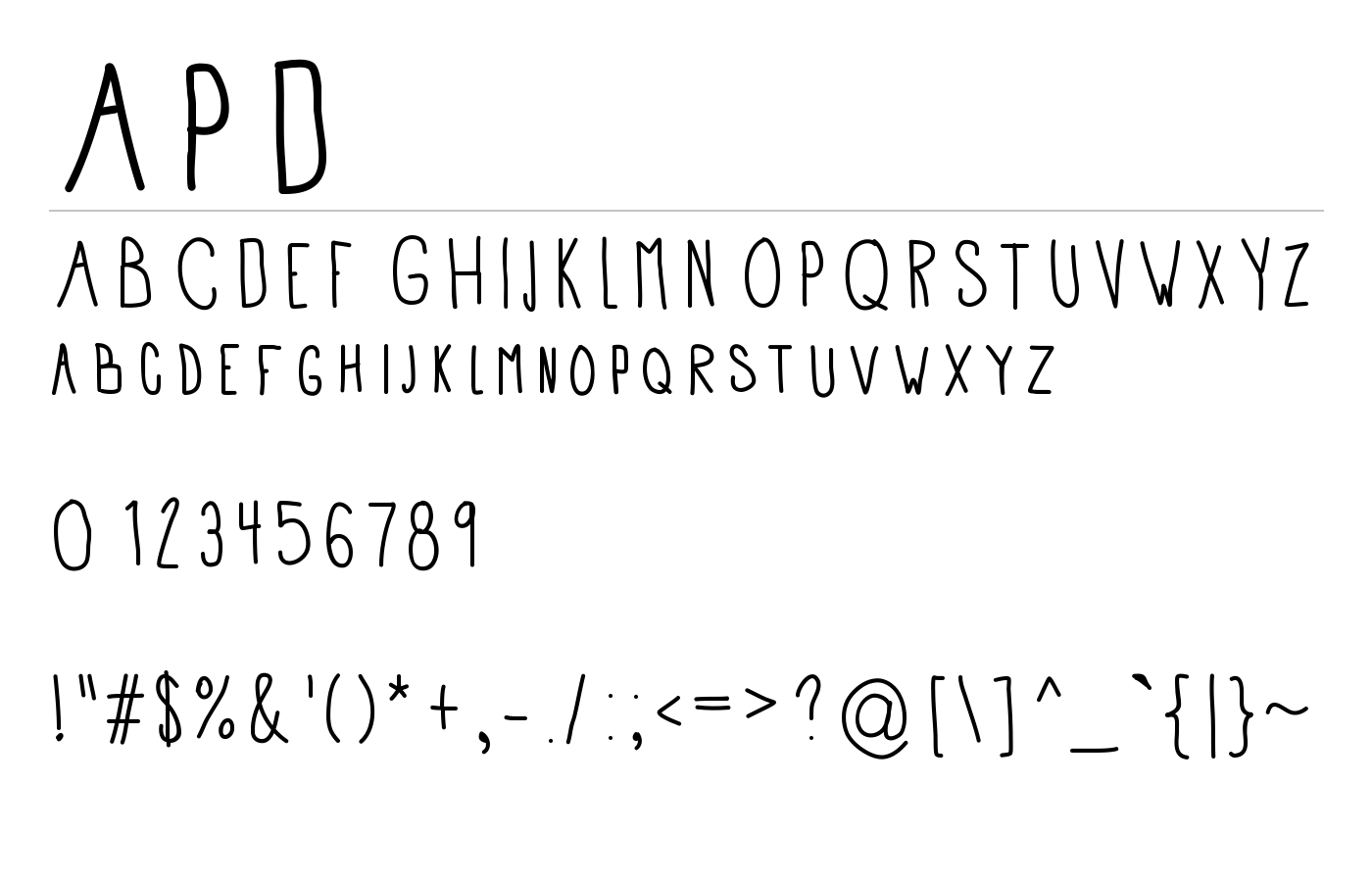
APD Font is a playful and casual handwritten sans serif typeface featuring tall, narrow letterforms with a consistent, light weight and low contrast. Its quirky, slightly uneven strokes give it a friendly and approachable personality, making it ideal for creative projects, informal branding, and whimsical designs. This font works best in headlines, invitations, or any context where a personal, fun touch is desired.
APD Font
About APD Font